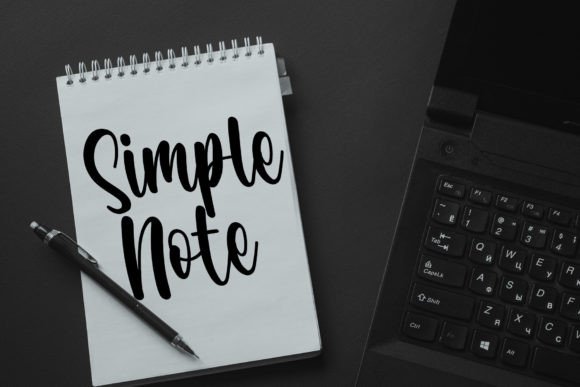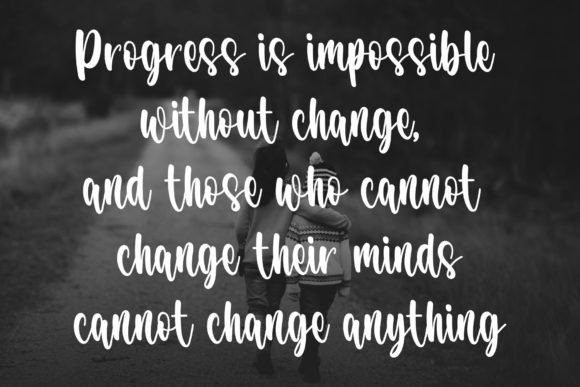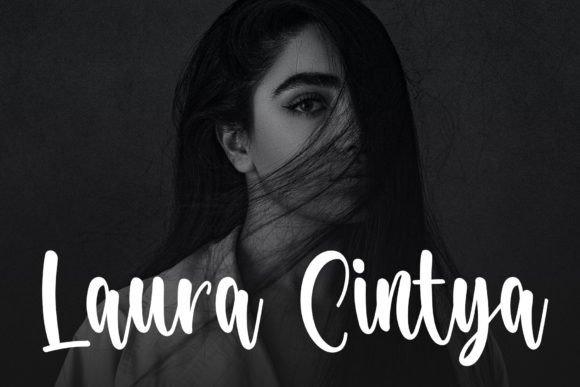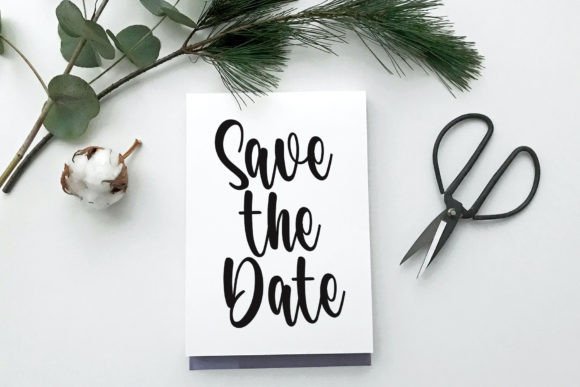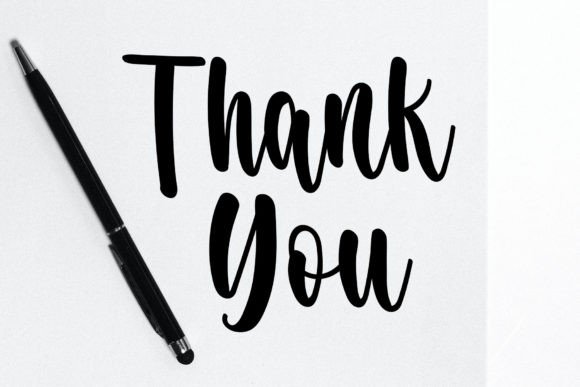
Introducing Bookmark Font: A Beautiful Handwritten Masterpiece
Are you tired of using the same old fonts in your designs? Look no further! Bookmark Font is a stunning handwritten font that is sure to capture your heart. Its unique and well-rounded letters make it a true masterpiece, perfect for creating spectacular designs that stand out from the crowd.
The Characteristics of Bookmark Font
Bookmark Font boasts a distinct and elegant style that is both versatile and eye-catching. Its handwritten letters are carefully crafted to provide a sense of warmth and personality to any design. The font’s rounded edges and smooth lines create a beautiful, fluid look that is perfect for a wide range of applications, from digital designs to print materials.
What Makes Bookmark Font So Special?
So, what sets Bookmark Font apart from other fonts? Here are just a few reasons why this font is a must-have for designers and crafters:
- Unique and Handwritten: Bookmark Font is a truly one-of-a-kind font that is handwritten with love and care. Its distinct letters are sure to add a touch of personality to any design.
- Versatile: Whether you’re creating a digital design, a print material, or a handmade craft, Bookmark Font is the perfect choice. Its versatile style works well in a variety of contexts, from formal to informal.
- Elegant and Sophisticated: Despite its handwritten nature, Bookmark Font exudes elegance and sophistication. Its smooth lines and rounded edges create a beautiful, refined look that is perfect for high-end designs.
How to Use Bookmark Font in Your Designs
- Digital Designs: Use Bookmark Font in your digital designs, such as social media graphics, blog posts, and email newsletters. Its elegant style is sure to elevate your online presence.
- Print Materials: Bookmark Font is perfect for print materials, such as brochures, flyers, and business cards. Its unique style will help your brand stand out from the competition.
- Handmade Crafts: If you’re a crafter, you’ll love using Bookmark Font in your handmade projects, such as scrapbooking, card making, and journaling. Its handwritten nature adds a touch of warmth and personality to any craft.
Tips for Getting the Most Out of Bookmark Font
- Experiment with Colors: Bookmark Font looks beautiful in a variety of colors. Experiment with different hues and combinations to find the perfect look for your design.
- Play with Sizes: Bookmark Font is versatile enough to work well in a range of sizes. Experiment with different font sizes to add visual interest to your design.
- Combine with Other Fonts: Bookmark Font pairs well with other fonts. Experiment with combining it with different fonts to create a unique and eye-catching design.
| Font Name | Bookmark Font |
| Author | Bintang Studio |